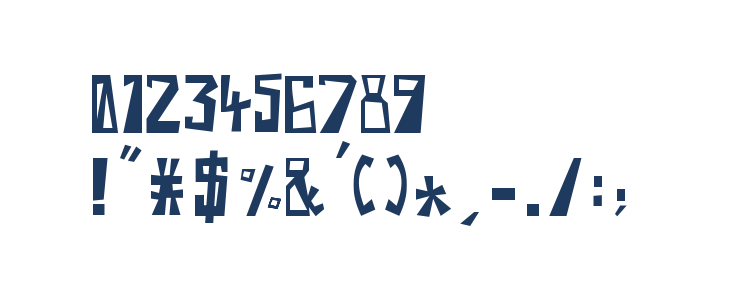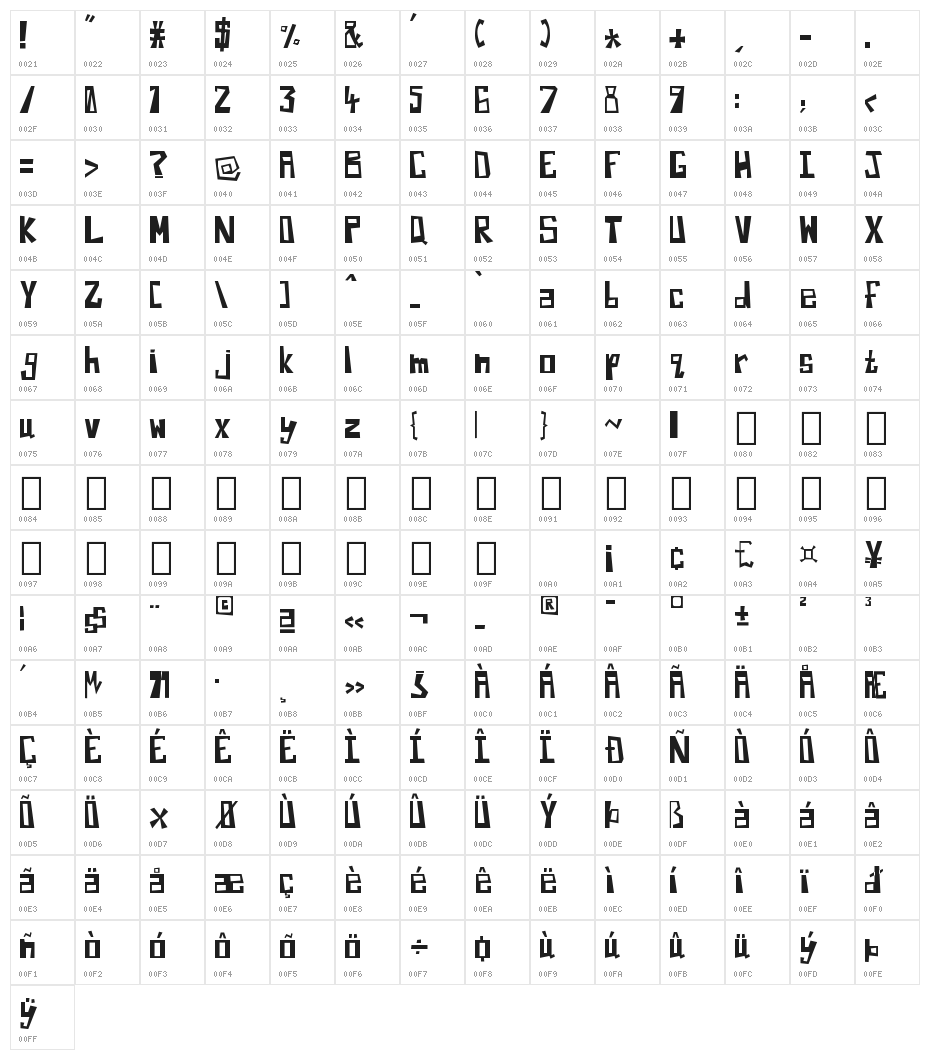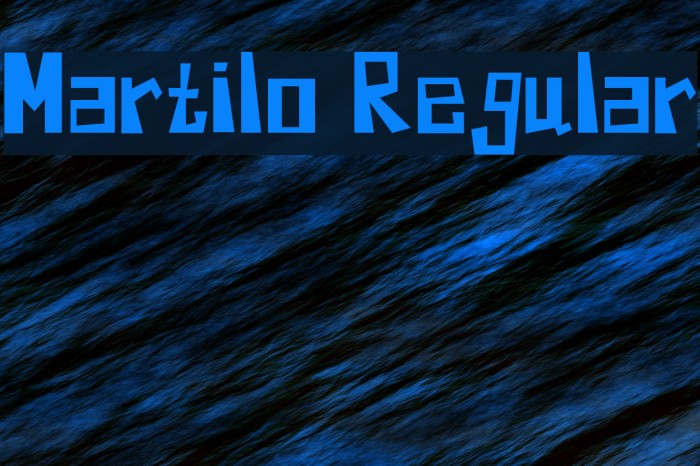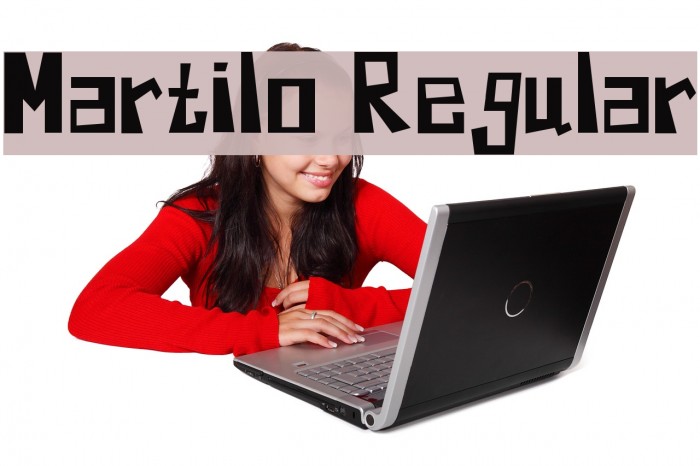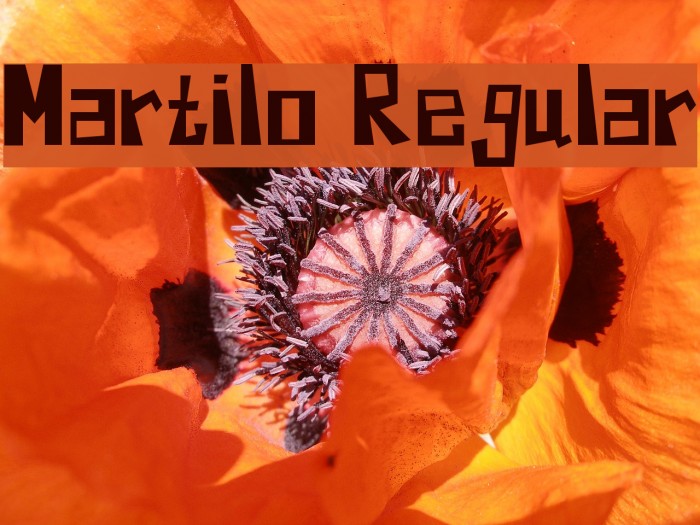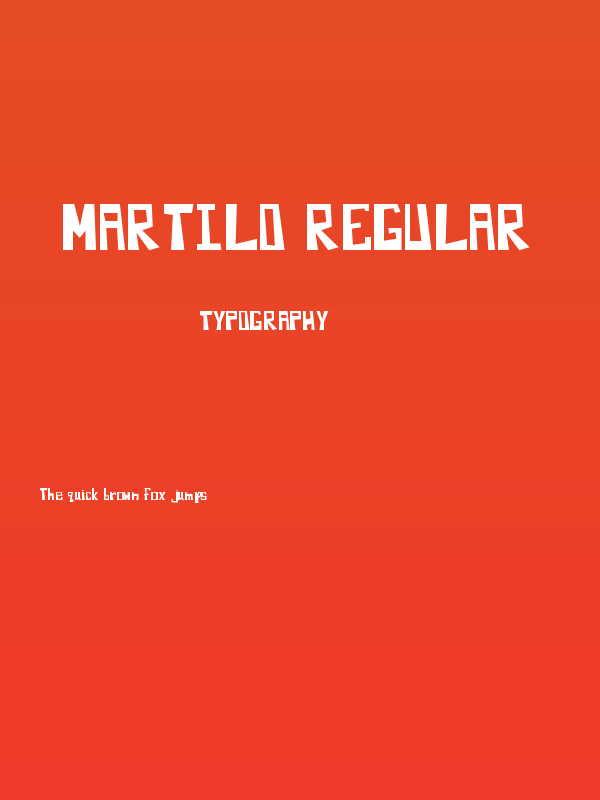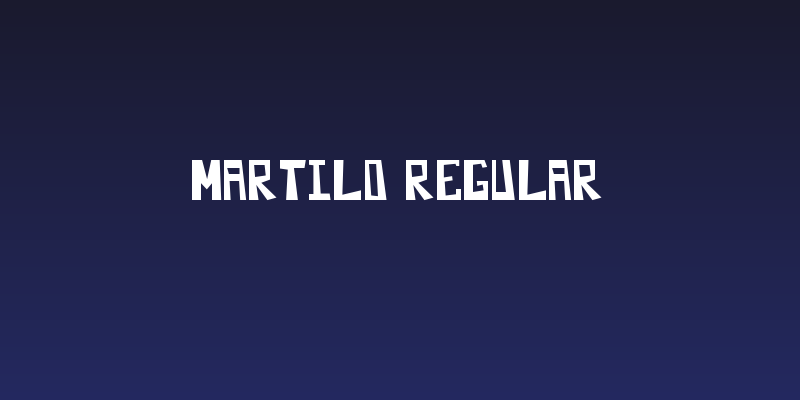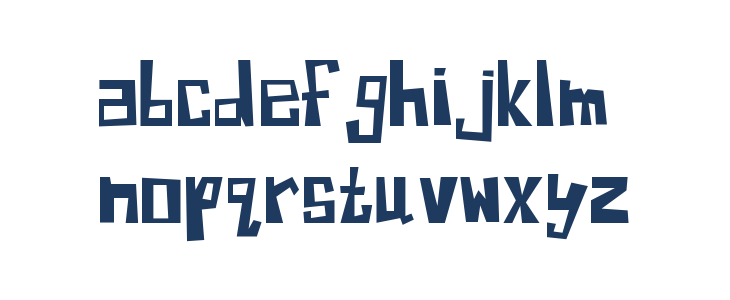
Martilo Regular Font
Martilo Regular Description
This font features a bold and dynamic style with sharp, angular edges and a slightly irregular form, giving it a unique and eye-catching appearance. The uppercase letters are particularly striking, with a geometric and somewhat blocky design that conveys strength and modernity. The lowercase letters maintain this boldness while offering a bit more fluidity in their shapes. Numbers and special characters follow the same design principles, ensuring consistency across all glyphs. The overall aesthetic is both playful and assertive, making it suitable for projects that require a strong visual impact.